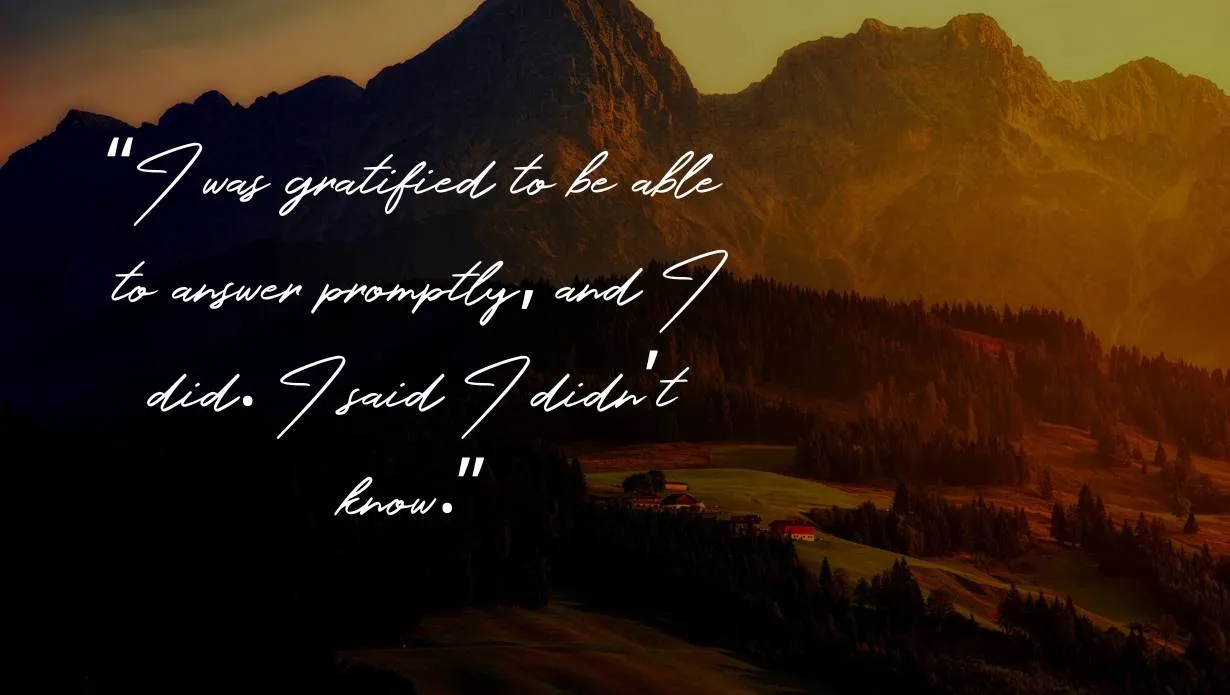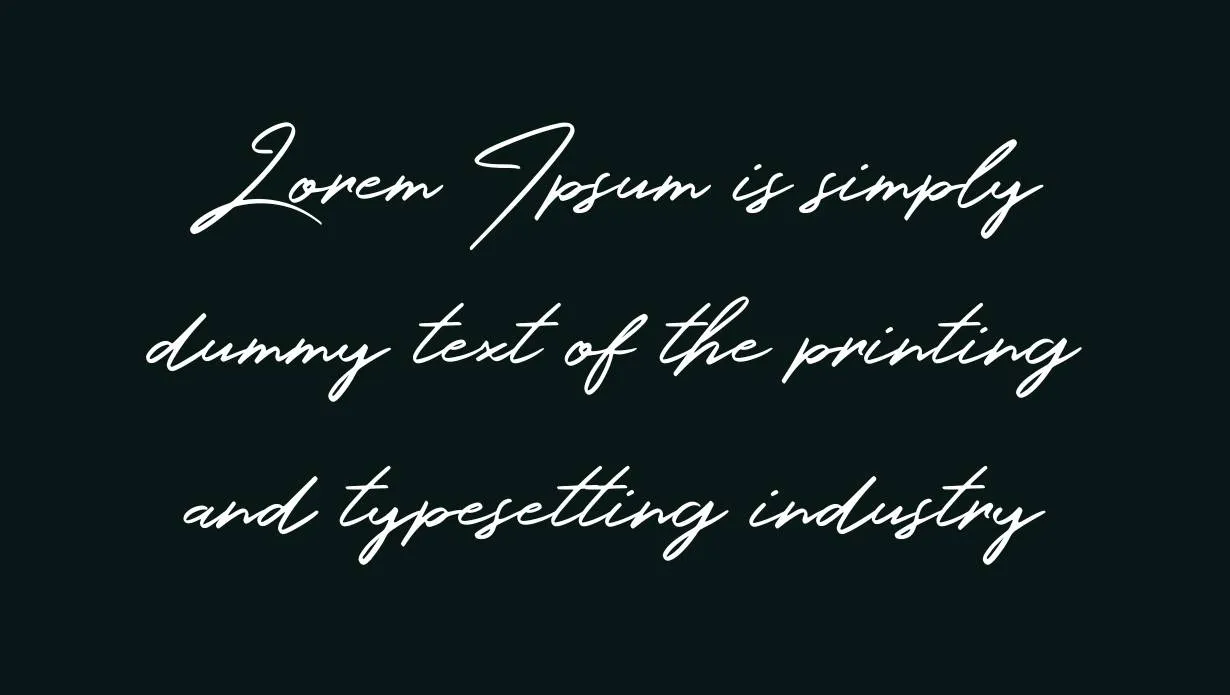
Holland Handwriting Font captures the natural flow of handwriting, making it a great choice for personal blogs, product packaging, and branding materials.
Its casual and informal style creates an approachable and friendly atmosphere in design. The sangharia font offers a comparable style and characters, making it a suitable substitute for the font mentioned.